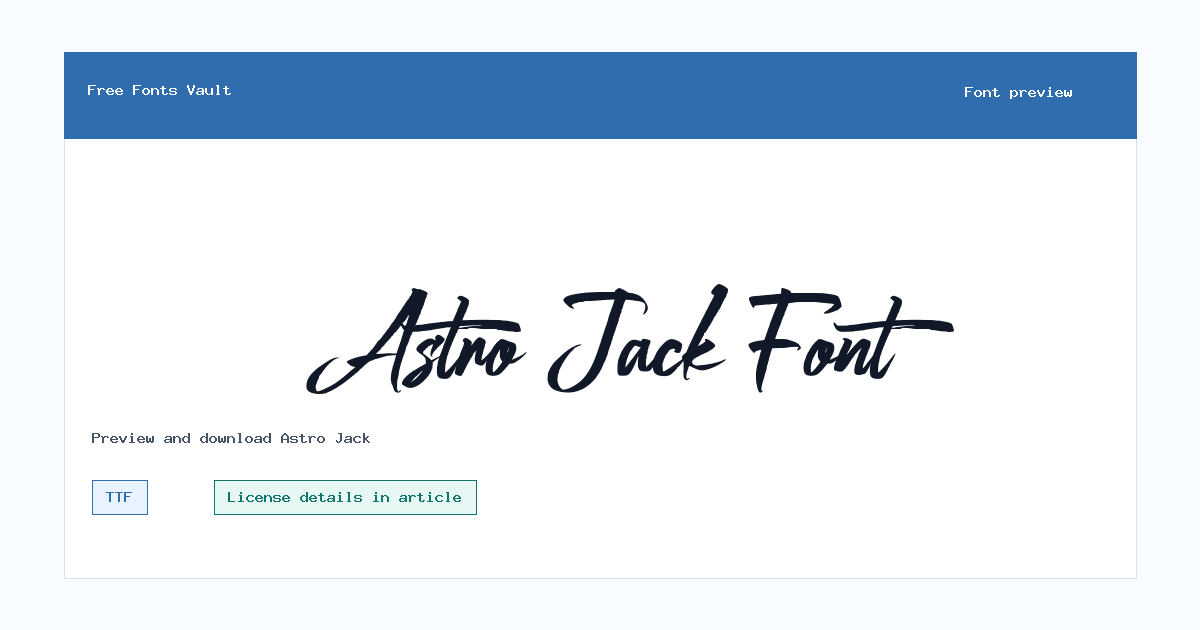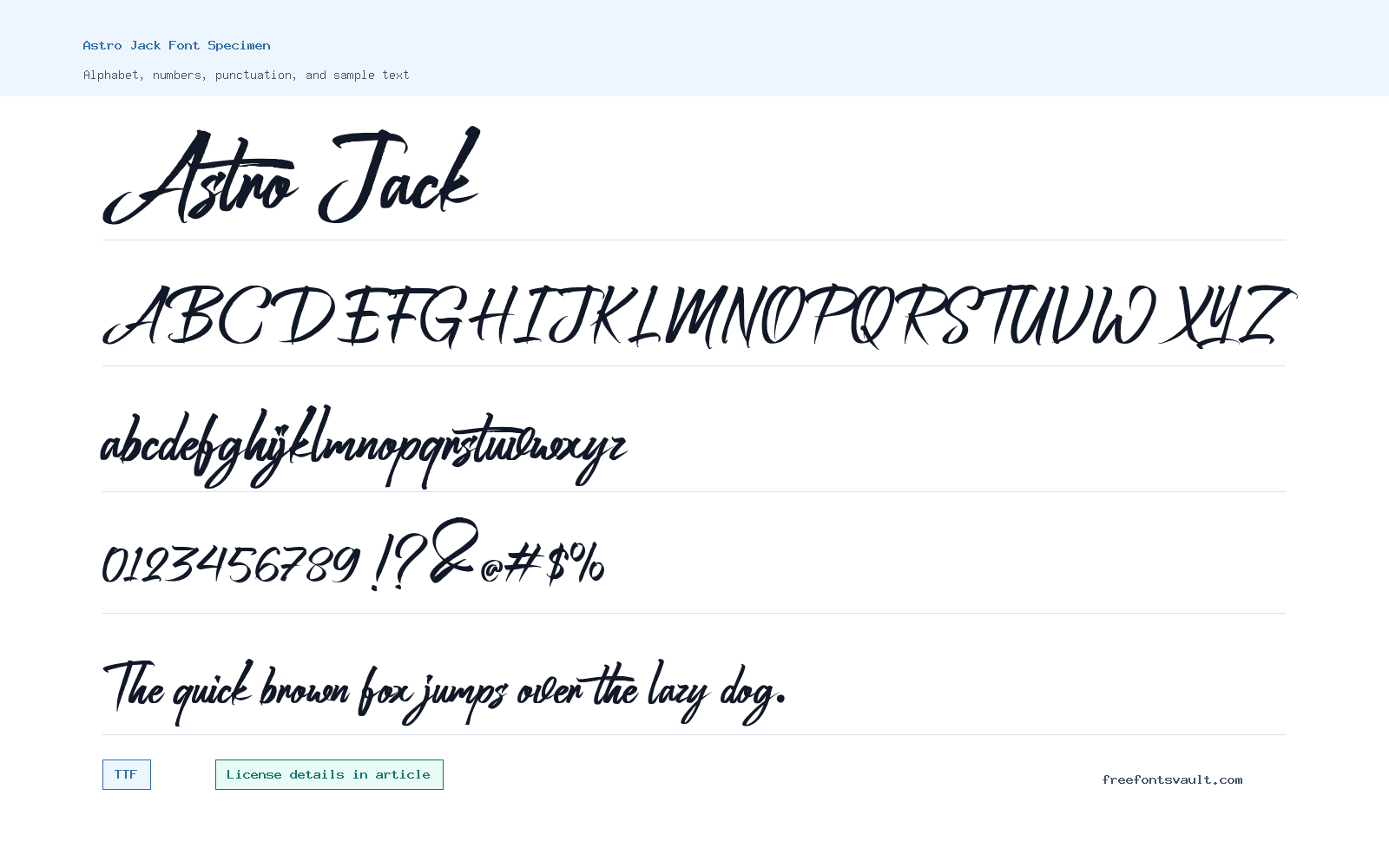
Astro Jack
- Designer Ferry Hadriyan
- Foundry Ferry Hadriyan
Astro Jack font.
Astro Jack is a downloadable TrueType font by Ferry Hadriyan. Use the live preview to test your own words, compare sizes, and decide whether its shape works for your design.
About Astro Jack
Start with short samples such as a title, name, logo draft, or social graphic text, then try longer words and mixed-case lines. Pay attention to spacing, punctuation, numbers, and readability on both light and dark backgrounds. If the font has a strong display feel in preview, keep it for short text and pair it with a simpler font for body copy.
Astro Jack works best as a display choice for short, memorable wording. The name gives it a playful, adventure-ready feel, so it can suit posters, thumbnails, event graphics, game-style titles, or logo mockups where the headline should feel energetic.
Before using it in a finished design, test the exact phrase in the preview and check whether the strongest letters dominate the word. Display fonts often work beautifully for one title but feel too loud for supporting copy, so keep longer explanations in a calmer companion font.
Astro Jack is credited to Ferry Hadriyan, who is also listed as the foundry name.
Who designed Astro Jack?
The font is credited to Ferry Hadriyan.